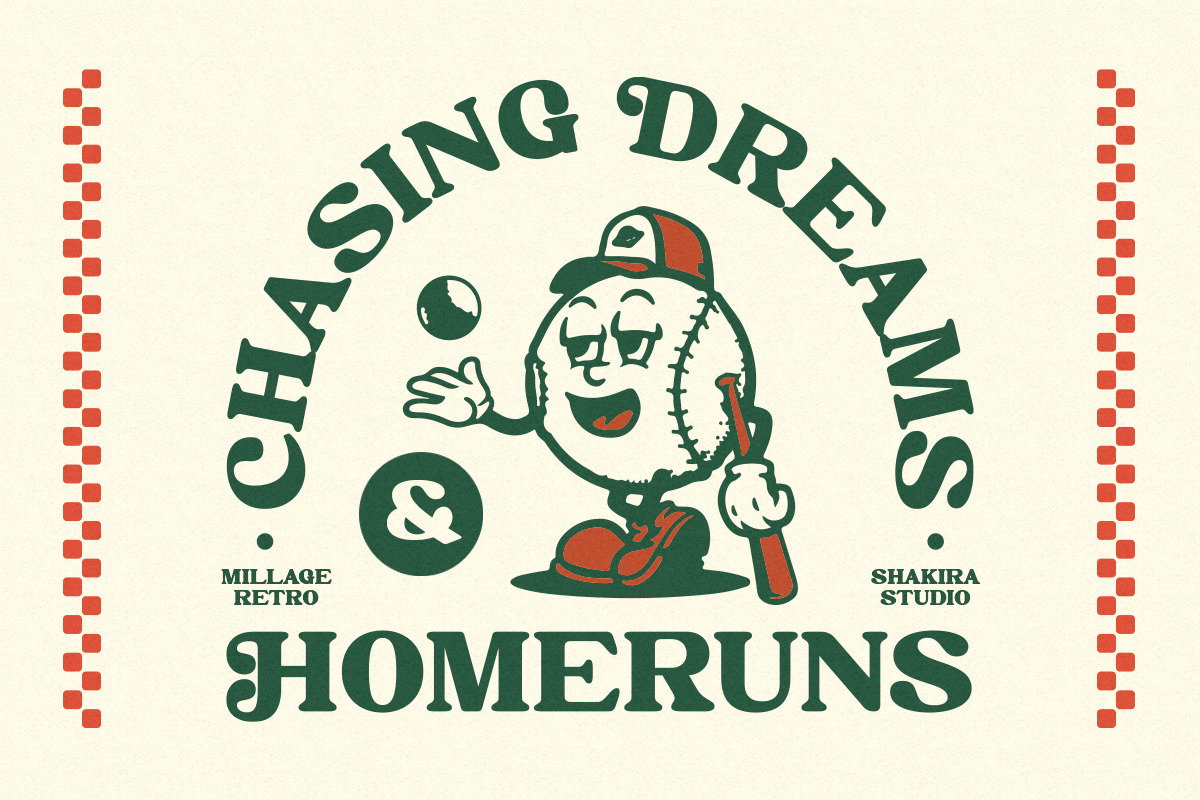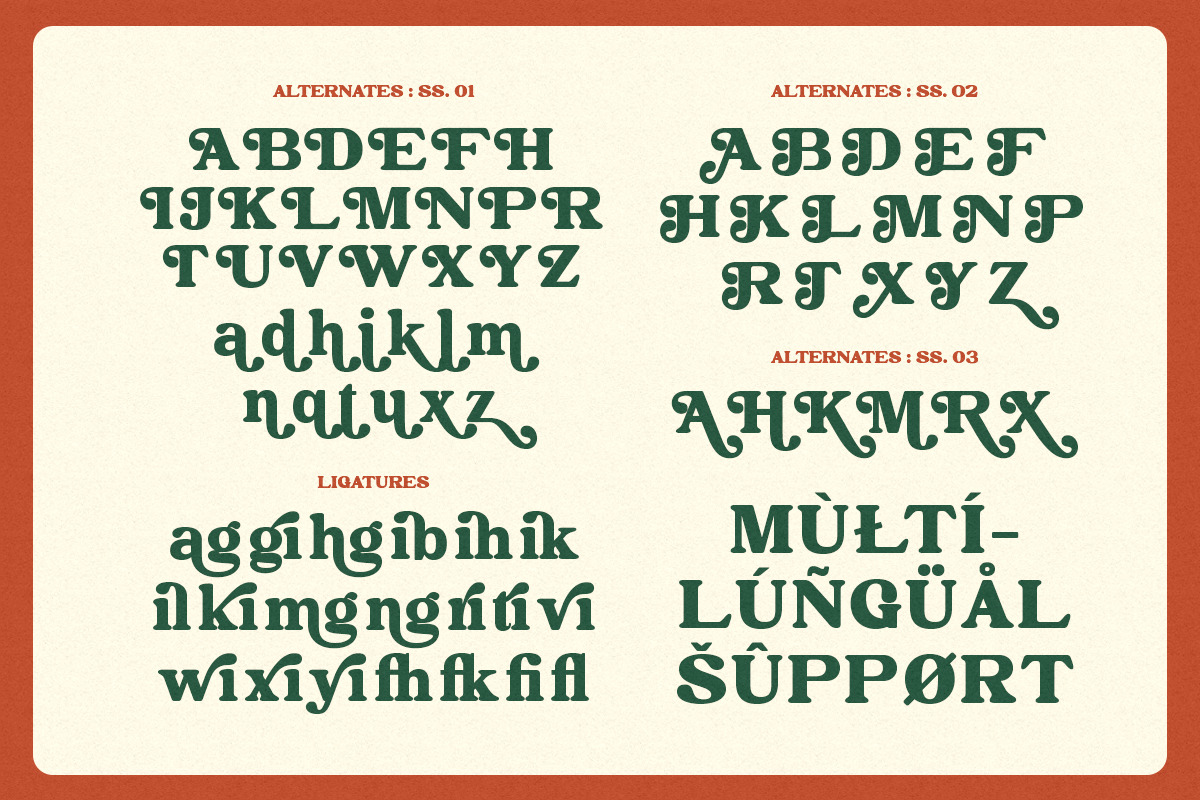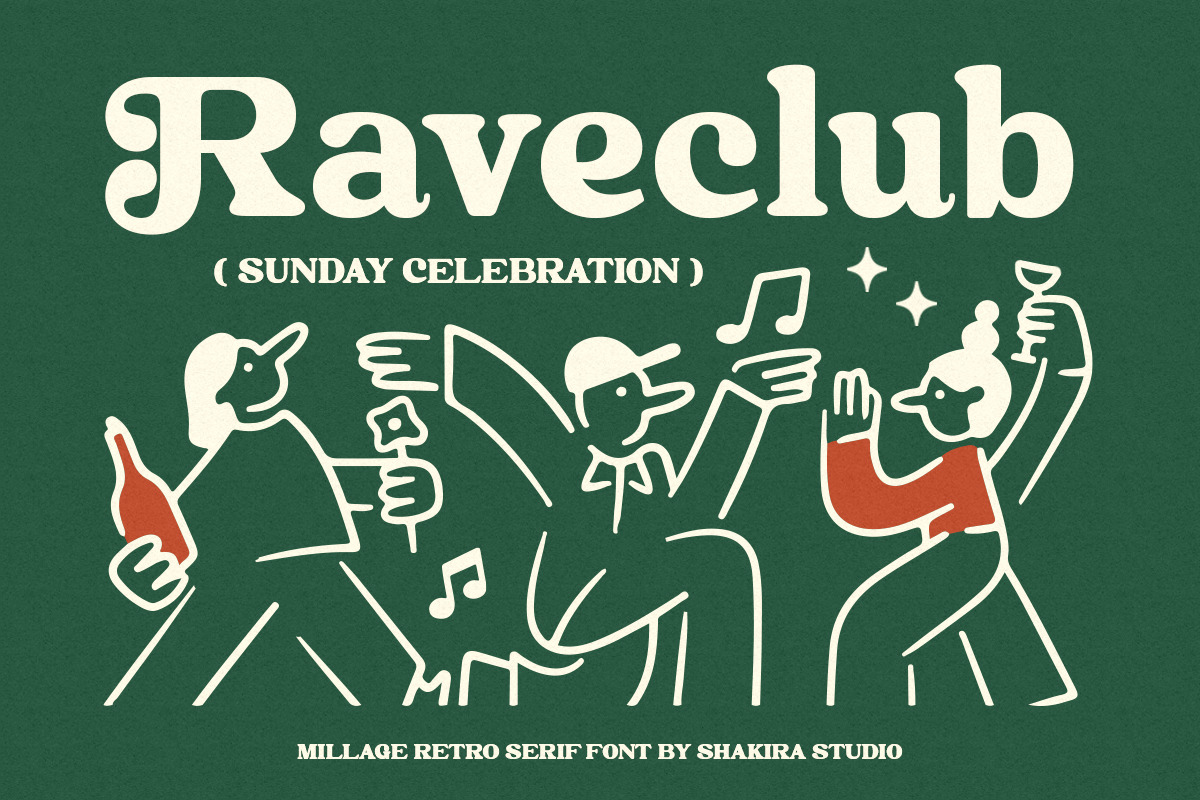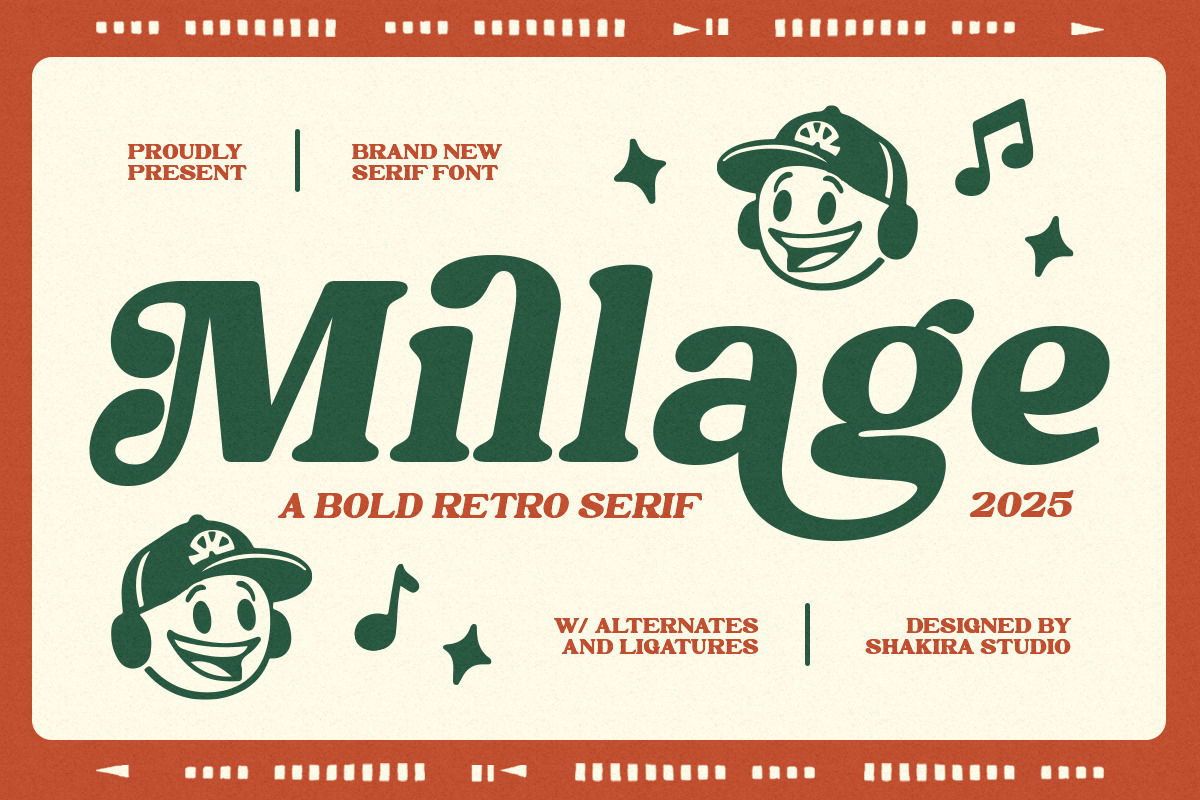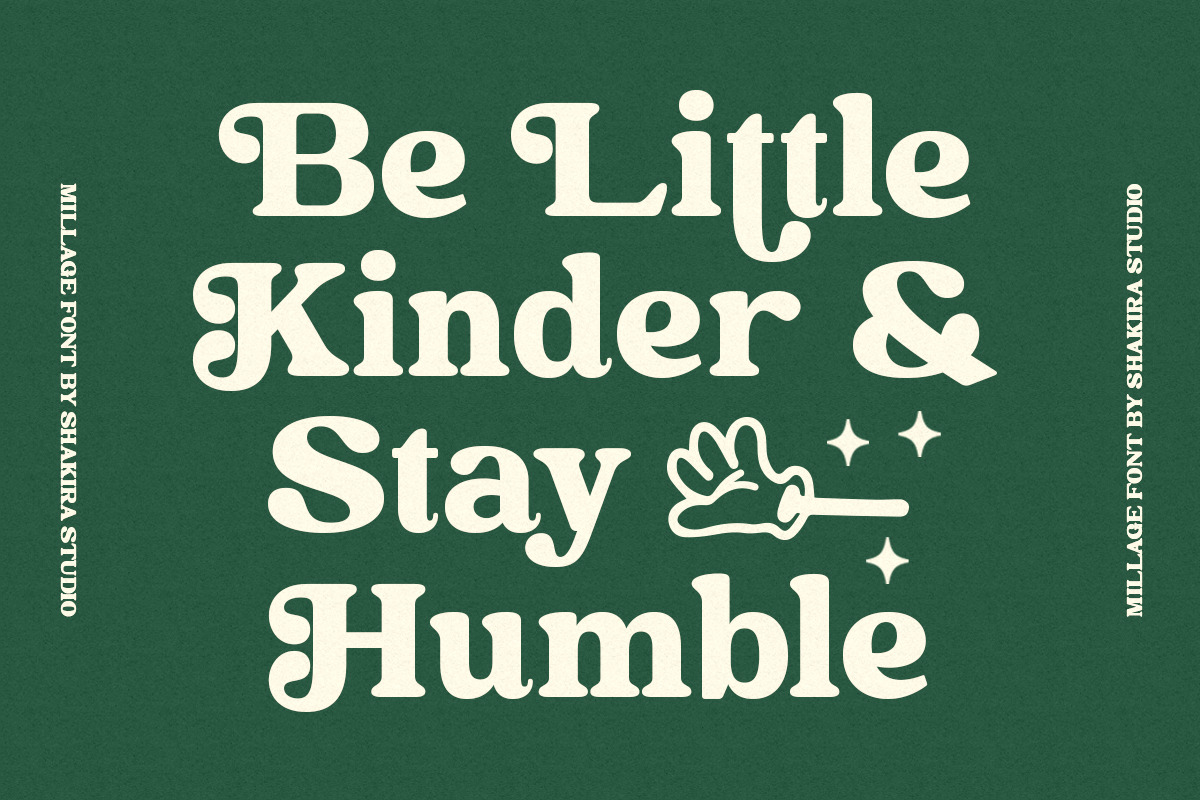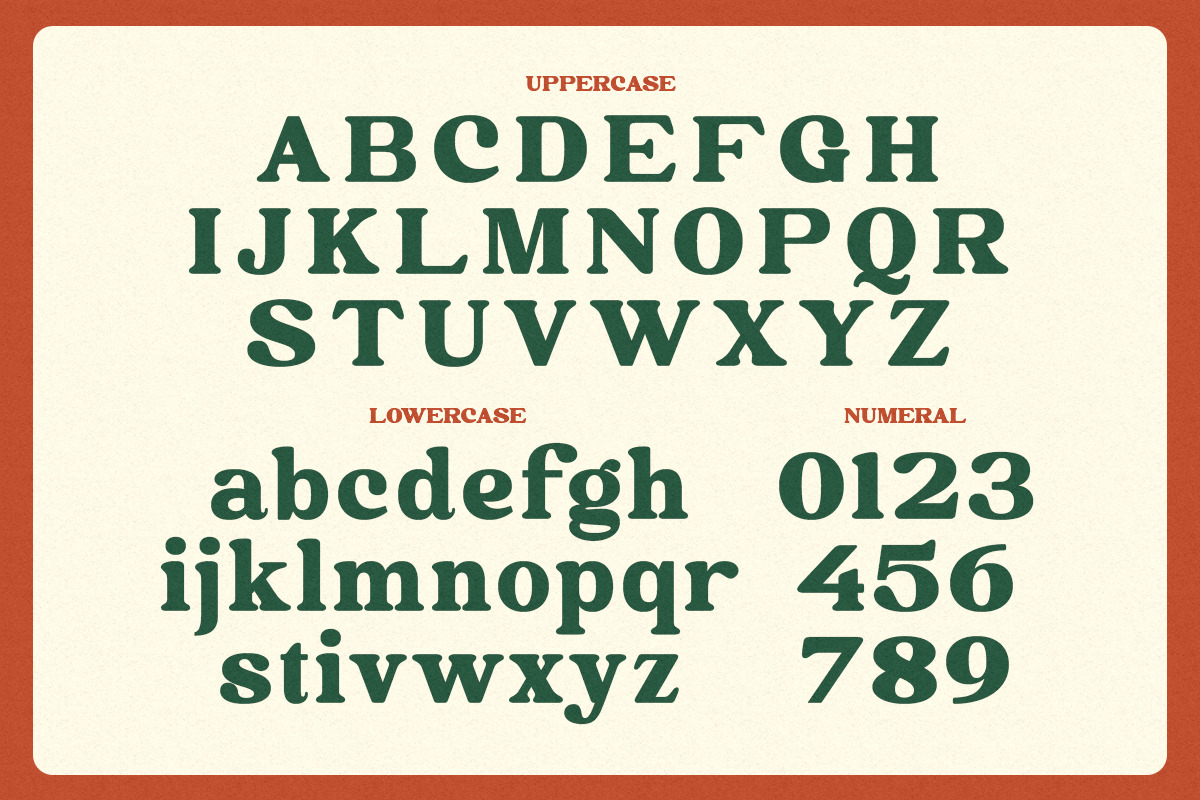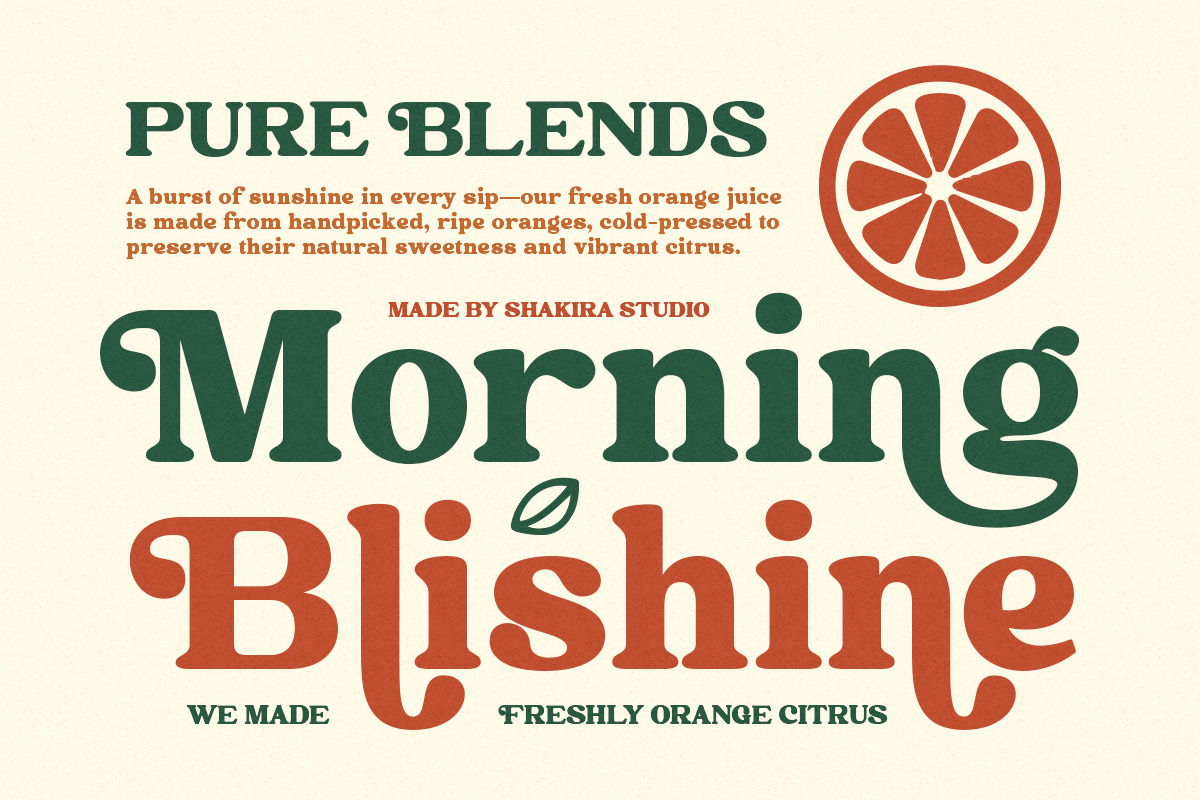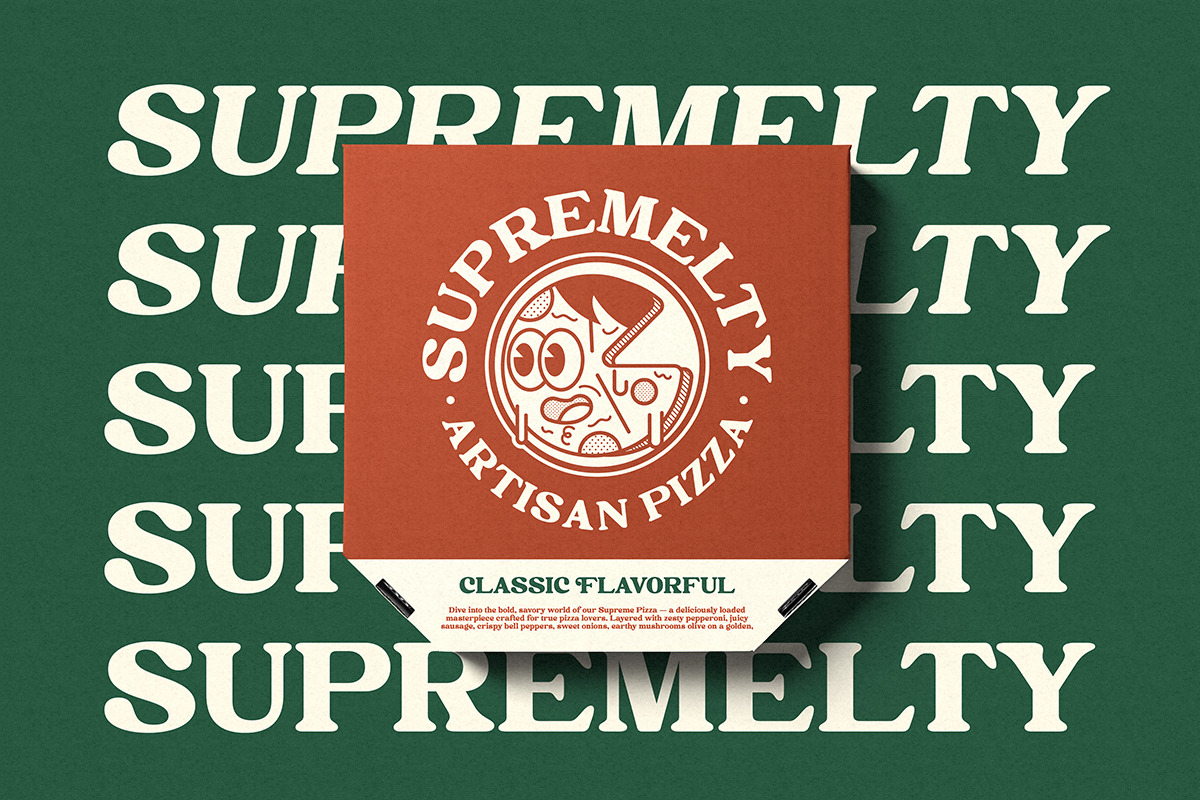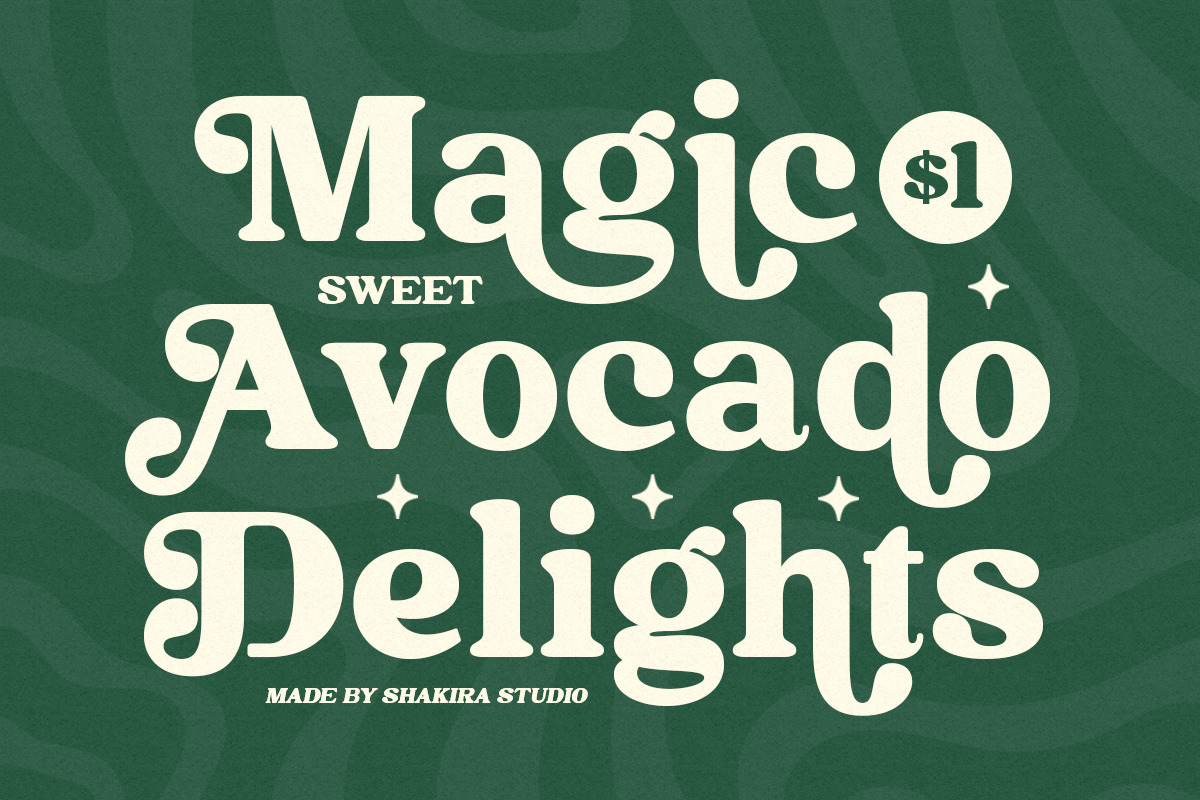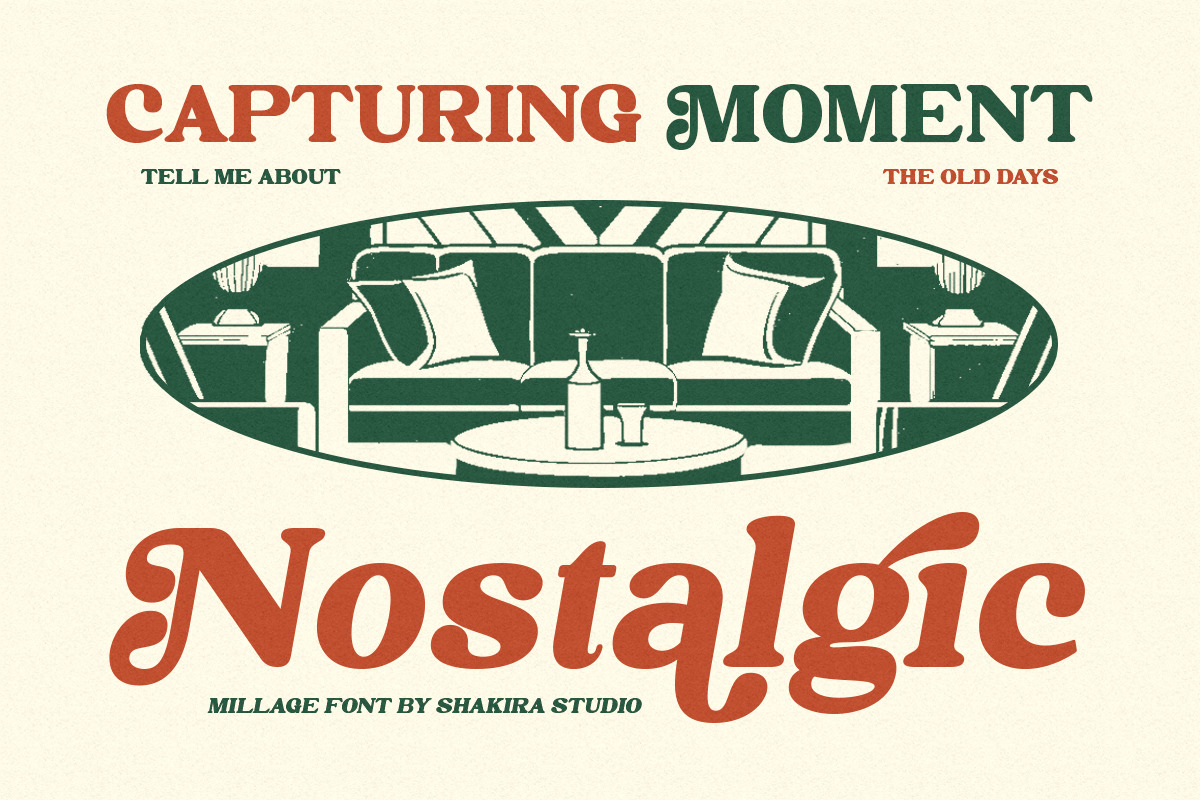
Millage - Bold Retro Serif Font
Millage - Bold Retro Serif Font for Impactful Vintage Branding
Millage is a commanding retro serif typeface that blends bold vintage aesthetics with contemporary versatility. Featuring both Regular and Italic styles with expressive alternates and ligatures, this font is expertly crafted for eye-catching branding, memorable logos, retro packaging, and poster designs that demand both nostalgia and modern impact.
Where Bold Retro Meets Contemporary Edge
With its chunky serifs and dynamic italic variant, Millage delivers exceptional flexibility for brands seeking both vintage authenticity and fresh appeal. The carefully designed alternates and ligatures enable authentic retro styling with contemporary readability.
Premium Features Include:
- Bold Serif Design – Strong vintage-inspired letterforms
- Dual Style Versions – Regular & italic for versatile applications
- Stylistic Alternates – 25+ authentic character variations
- Expressive Ligatures – Classic letter connections
- Universal Compatibility – From packaging to billboards
- Extended Latin Support – Comprehensive character set
Make a Statement with Millage's Retro Boldness Ideal for:
- Craft beer branding
- Vintage product packaging
- Music festival promotions
- Retro diner identities
- Editorial headline typography